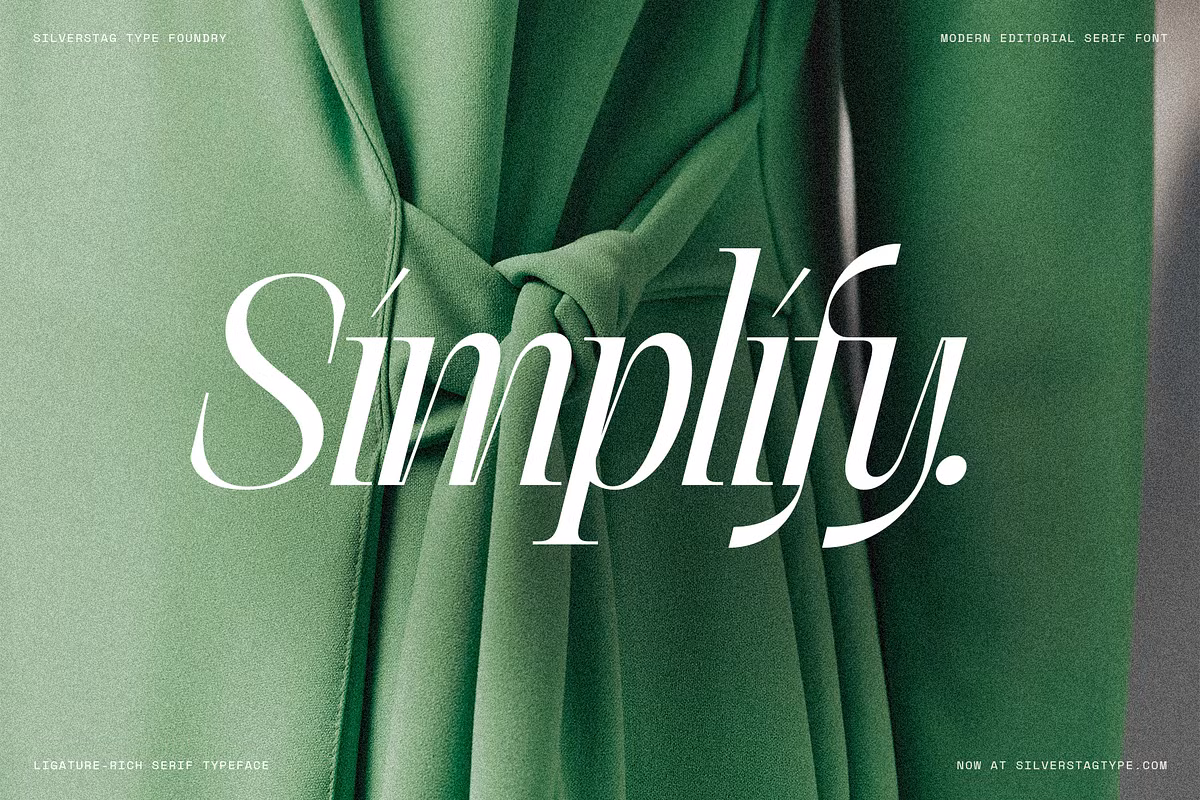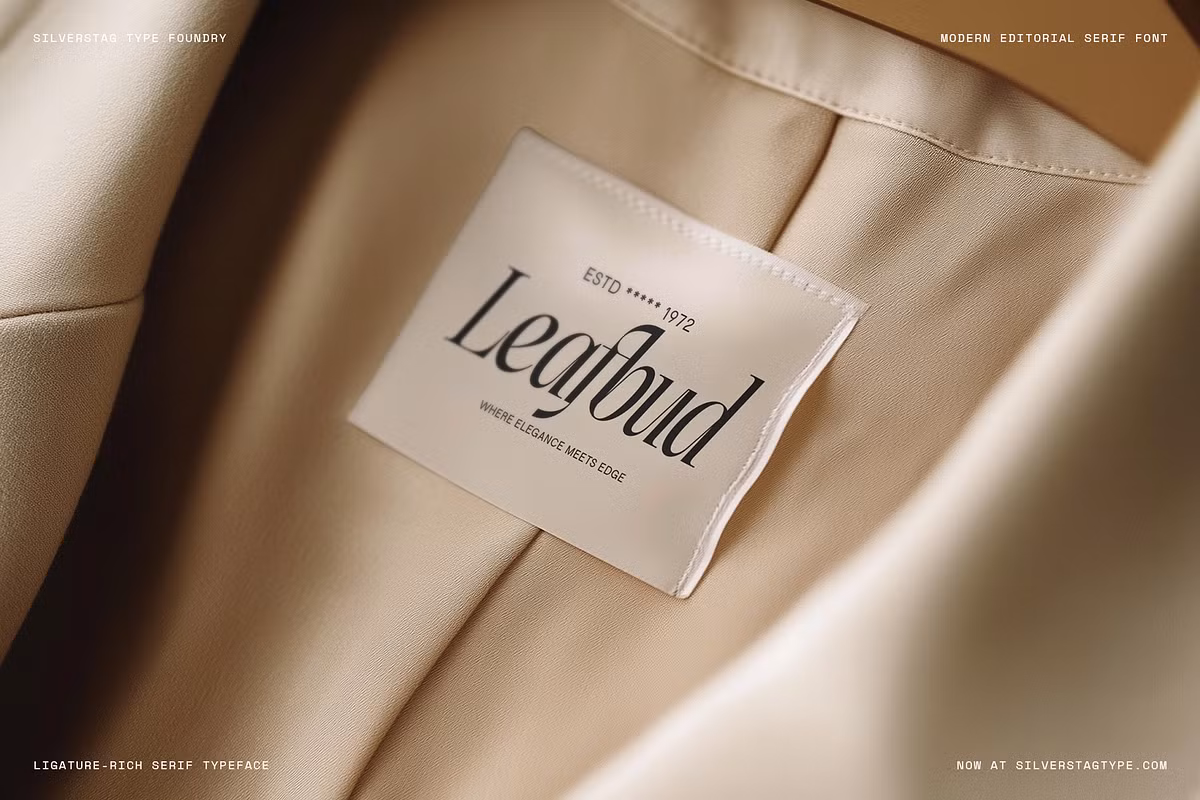
The Elfkin Editorial: Versatile Serif Font for Elegant Typography
Introducing SLTF The Elfkin Editorial. Let’s talk about SLTF The Elfkin Editorial, a really nice serif font that can make your designs look great. It’s perfect for things like editing, branding, and making creative layouts. The way it’s made is really elegant and it has a nice balance of thick and thin lines, which makes it look good and work well at the same time. If you’re a designer who wants to make your work stand out with cool typography, Elfkin is a great choice. It’s special because it’s both pretty and useful, so you can use it to make a statement in your designs.
Design Style and Characteristics
The Elfkin Editorial has a really classy look thanks to its fancy serif style, which makes any project look super elegant. The way the letters are designed is a perfect mix of old-school serif features and modern touches, so it doesn’t look too old-fashioned or too trendy. Each letter is carefully made to fit well with the others, so it’s easy to read even when the text is small or really big. The way the thick and thin lines are balanced in each letter adds some visual flair and makes the whole thing look really beautiful.
The italic version of Elfkin is really something special. It’s full of energy and movement, which makes it perfect for adding a touch of elegance or romance to your writing. You can use it to make a headline stand out, or to add some flair to a quote or call to action. Either way, the italic Elfkin is a great way to grab the reader’s attention without being too overpowering. It’s subtle, yet effective, and it can really bring your designs to life. Whether you’re working on a big project or just a small piece of writing, the italic Elfkin is definitely worth considering. It can add a whole new level of depth and emotion to your text, and it’s a great way to make your message really resonate with your readers.
Character Sets and Versatile Use Cases
The SLTF The Elfkin Editorial is more than just a stylish font – it’s also incredibly functional. It comes with a huge range of extra characters and ligatures, over 80 in fact, which gives you the flexibility to try out different typography styles and really refine your designs. Whether you’re working on headlines, logos, or longer pieces of content, you’ll be able to find the perfect character to fit your needs. This means you can experiment with different looks and feels, and really make your designs stand out. With so many options to choose from, you’ll be able to create unique and eye-catching typography that elevates your designs to the next level.
The font is really versatile and can be used by people all around the world, since it supports over 100 languages. This means that anyone, no matter where they’re from, can use it to create something that looks professional and polished. All the punctuation you need is included, so your designs will look complete and finished. You can use Elfkin for lots of different things, like:
- Magazines: Create stunning layouts that capture readers’ attention.
- Books: Give your books some class with nice layouts.
- Personal Branding: Convey your unique style through your branding materials.
- Social Media Graphics: Stand out in the digital space with eye-catching typography.
Pairing Suggestions for Enhanced Typography
To fully utilize the versatility of the Elfkin font, consider pairing it with complementary typefaces that enhance its elegance and readability. By choosing the right combinations, you can create stunning visuals that captivate your audience and leave a lasting impression.
Experimenting with different pairings can lead to unique designs that maintain the sophistication of the Elfkin font while adding variety to your projects. Have fun with your typography!